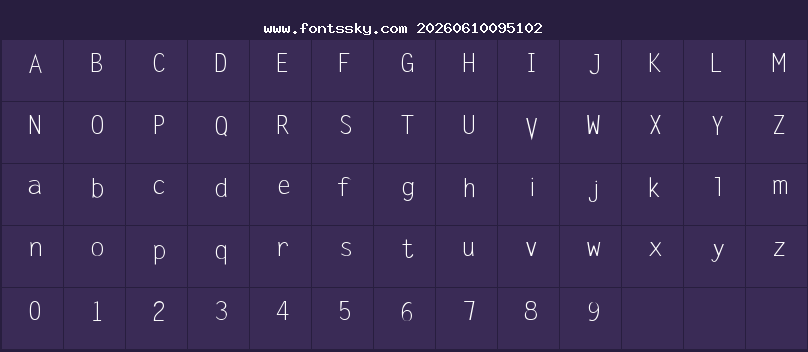
字体家AI造字柒恒 Preview
• Font Name: 字体家AI造字柒恒
• Full Font Name: 字体家AI造字柒恒
• Character Count: 7505
• Description: 字体家AI造字柒恒是一款风格化的细体字体
About 字体家AI造字柒恒.ttf
字体家AI造字柒恒.ttf is a modern, elegant sans-serif font designed for ultimate readability and visual harmony. Perfect for branding, headlines, web design, and print materials.